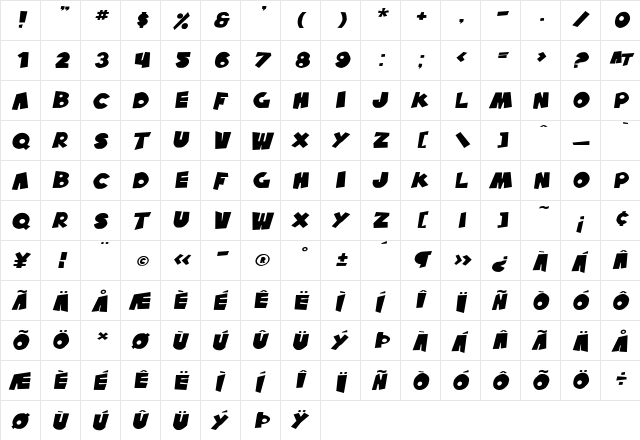
SF Pale Bottom Extended Oblique
Design Context for SF Pale Bottom Extended Typeface
SF Pale Bottom Extended is a composed and adaptable typeface that performs quietly and consistently across a wide range of design contexts. Its italic angle brings a sense of urgency and motion to the letterforms.